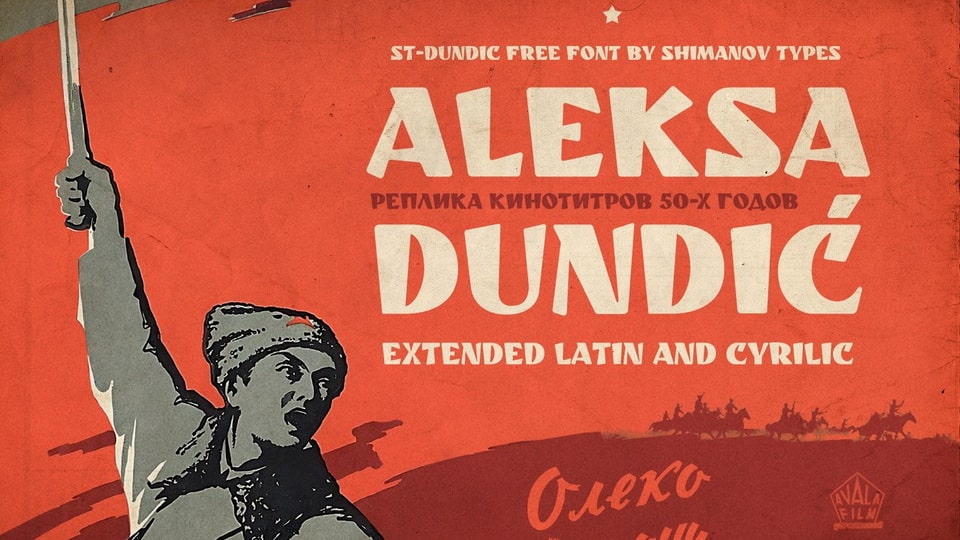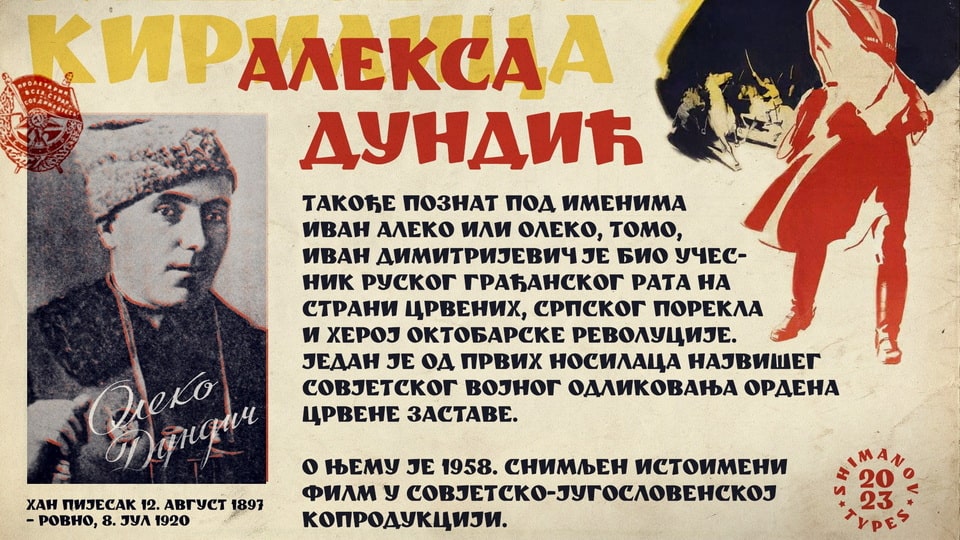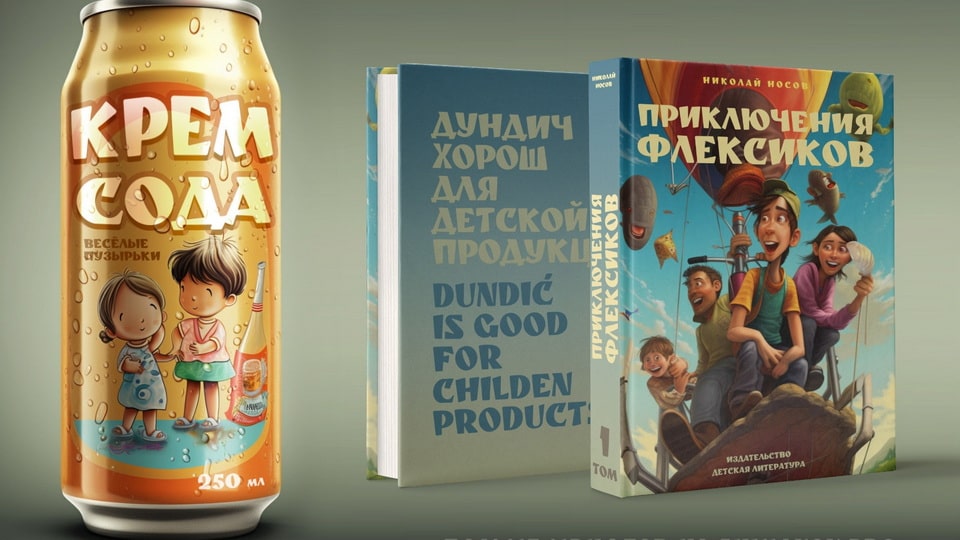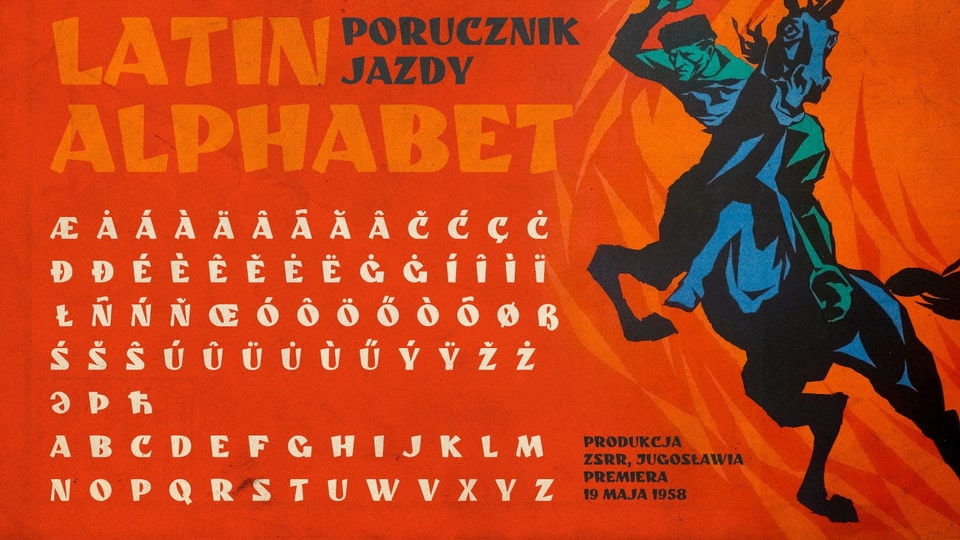
ST-Dundić (pronounced “Dundich”) is a replica of the movie credits of the 50s joint Soviet-Yugoslav film.
The film was released in two versions of font design – the Soviet version was accompanied by a ringing, slender antiqua, the Yugoslav version was accompanied by a strange, clumsy typeface. And although the film is military, about the Yugoslav Chapaev – the Serbian commander of the Red Army Oleko Dundich, with the texture of the civil war, the Red Cavalry, the letters in the font are very childish and friendly.
Perfect for decorating children’s products.
Extended Cyrillic and Latin, numbering, basic punctuation.